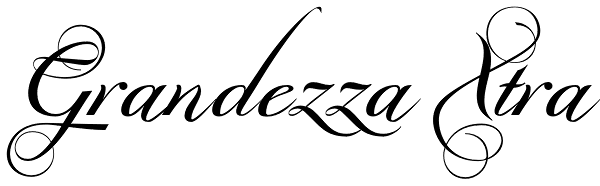
Grandezza Xtra
Grandezza Xtra is the standalone version of my most elaborate script. It is the script for many countries, good for Basic Latin, Latin Eastern Europe, Turkish, Baltic. I first designed 5 different sets and now this Xtra version which has a second...